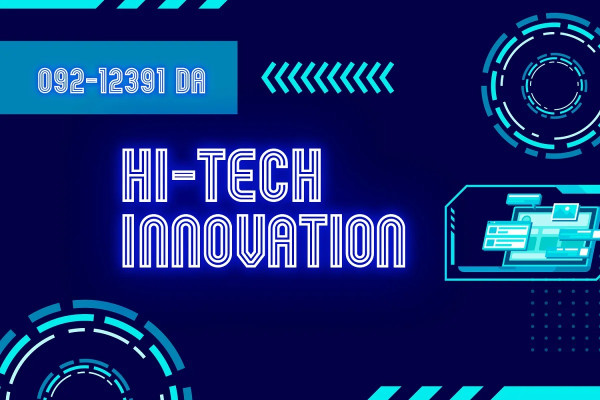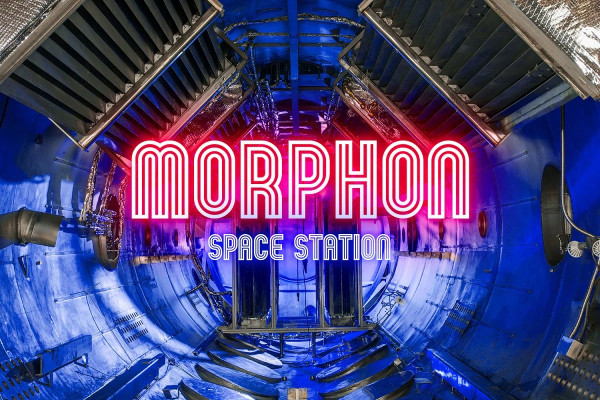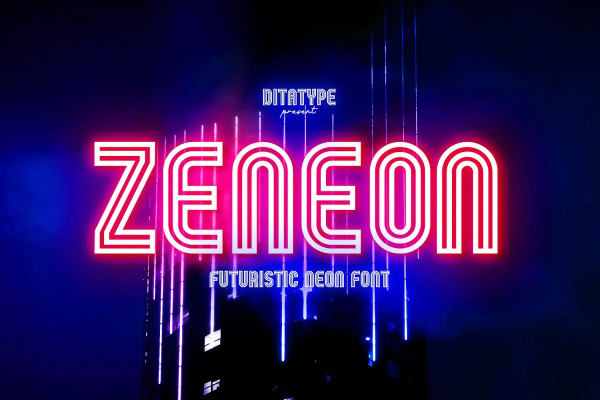
Zeneon Font
Zeneon Font is an extraordinary display font that combines the captivating allure of neon lights with an intriguing inline design. With its bold uppercase letterforms and electrifying neon style, this typeface creates a visually stunning and unforgettable impact. The defining feature of it lies in its mesmerizing neon-inspired design, enhanced by a distinctive inline element. Each letter is meticulously crafted to emanate the vibrant glow of neon lights, capturing the essence of urban energy. The inline detail adds an extra layer of visual interest, creating a dynamic and captivating composition.
Inspired by the enchanting charm of neon signs, it infuses a sense of liveliness and modernity into each character. The font embodies the pulsating energy of neon lights, casting a radiant glow that demands attention. This neon style evokes a nostalgic urban atmosphere, adding a touch of excitement and intrigue to your designs. The uppercase letterforms of Zeneon are bold and assertive, making a powerful statement with their distinct design. The combination of the neon style and the intriguing inline element enhances the font’s overall composition, creating a captivating visual impact. It is perfect for headlines, logos, signage, and any design project that seeks to command attention with a touch of neon-inspired flair. Enjoy the various features available in this font.